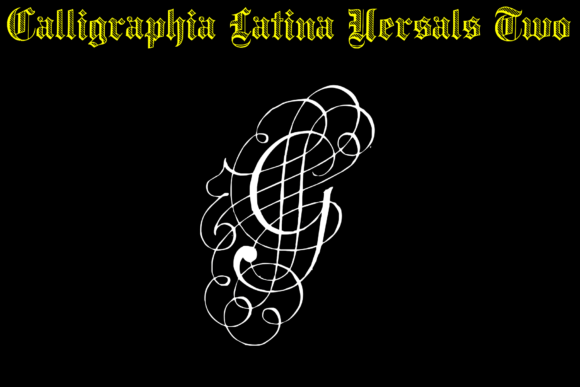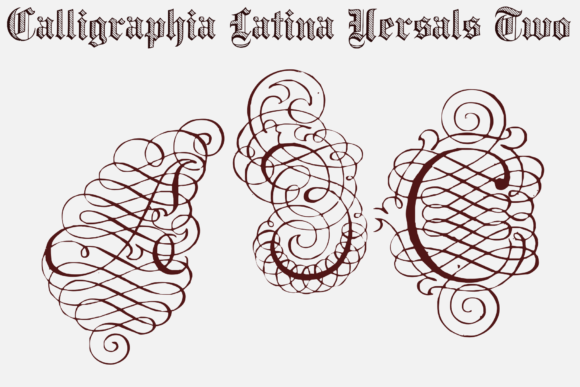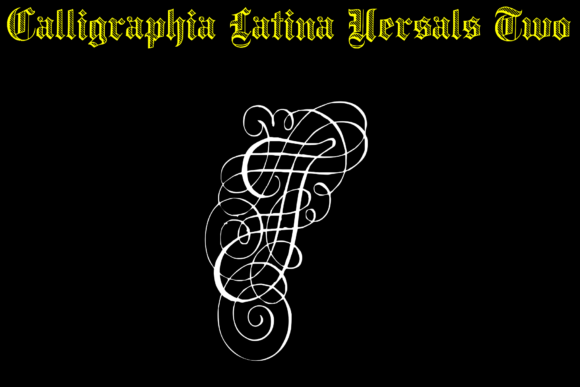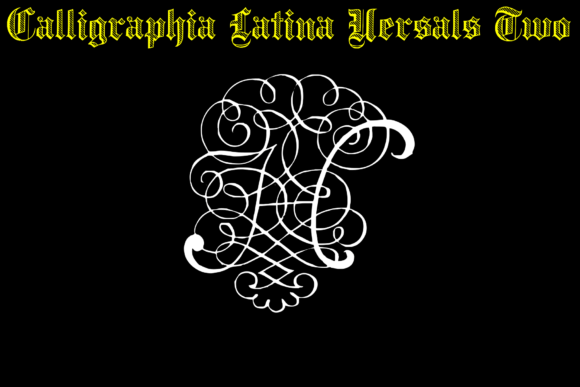
Discover the Elegant Imperfection of Calligraphia Latina Versals Two Font
Welcome to the enchanting world of Calligraphia Latina, a globally acclaimed ornamental font that perfectly embodies the emerging zeitgeist of imperfect calligraphy. This stunning typeface is a masterclass in elegant disarray, offering a unique blend of traditional neoclassical penmanship and modern grunge aesthetics.
The Art of Imperfect Calligraphy
Calligraphia Latina Versals Two Font is a beautiful example of how imperfections can elevate design to new heights. The font’s intricate curves and subtle ornamentation evoke a sense of handcrafted elegance, as if each letter was carefully penned by a skilled calligrapher. Yet, the font’s versatility allows you to experiment with innovative software filters, layering, and freehand techniques to achieve a effortlessly chic, grunge aesthetic.
Unleash Your Creativity with Calligraphia Latina
The interactive experience offered by Calligraphia Latina culminates in an enticing alphabet set laden with intricate neoclassical penmanship initials, subtly ornamented to captivate your creative soul. Whether you’re a designer, crafter, or simply a lover of beautiful typography, this font offers endless possibilities for creative expression.
Key Features of Calligraphia Latina Versals Two Font
- Intricate neoclassical penmanship: Calligraphia Latina features beautiful, hand-crafted letterforms that evoke a sense of traditional elegance.
- Subtle ornamentation: The font’s delicate ornamentation adds a touch of sophistication and whimsy to your designs.
- Imperfect calligraphy: Calligraphia Latina’s unique blend of perfect and imperfect letterforms creates a sense of organic, hand-crafted charm.
- Versatile and adaptable: The font can be used for a wide range of design applications, from digital projects to print materials.
Design Inspiration with Calligraphia Latina
Calligraphia Latina Versals Two Font is the perfect choice for designers and crafters looking to add a touch of elegance and sophistication to their work. Here are a few design inspiration ideas to get you started:
- Wedding stationery: Use Calligraphia Latina to create beautiful, bespoke wedding invitations, place cards, and stationery.
- Branding and packaging: The font’s unique blend of elegance and imperfection makes it perfect for luxury brands and high-end packaging design.
- Art and illustration: Calligraphia Latina’s intricate letterforms and ornamentation make it a great choice for artistic projects, such as illustrations, typographic art, and mixed media collages.
Tips for Using Calligraphia Latina Versals Two Font
To get the most out of Calligraphia Latina, here are a few tips to keep in mind:
- Experiment with software filters: Try applying different software filters to achieve a unique, grunge aesthetic.
- Layering and texture: Experiment with layering and texture to add depth and interest to your designs.
- Freehand techniques: Don’t be afraid to add your own hand-crafted elements to your designs, such as hand-drawn flourishes or ink splatters.
Calligraphia Latina Versals Two Font is a truly unique and captivating typeface that offers a fresh take on traditional calligraphy. With its intricate neoclassical penmanship, subtle ornamentation, and imperfect charm, this font is sure to inspire designers and crafters around the world. Whether you’re looking to create elegant wedding stationery, luxurious branding, or artistic typographic projects, Calligraphia Latina is the perfect choice.